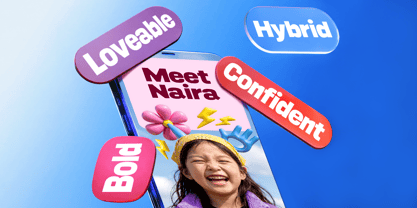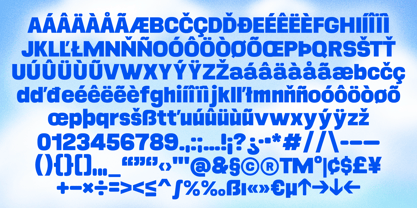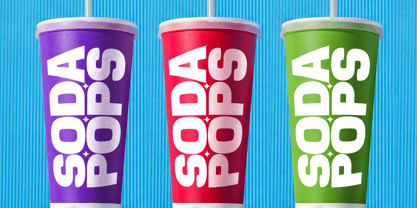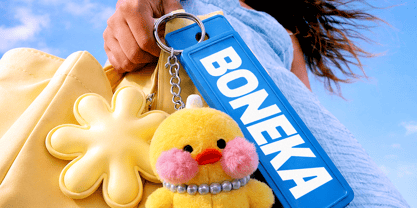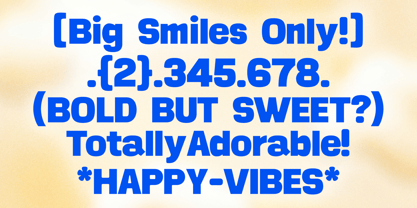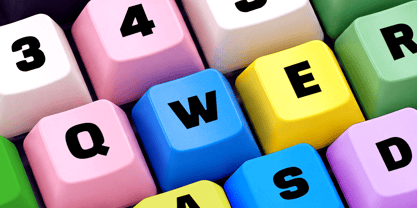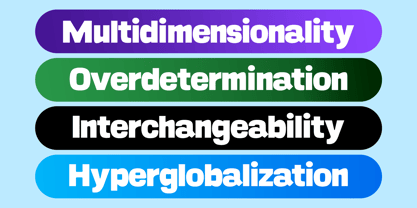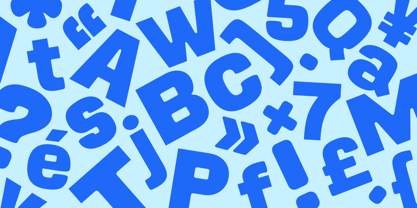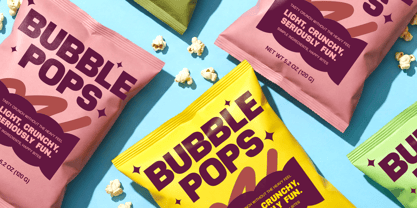
Beka
by Initiatype
The Beka Font Family was designed by Ferry Acviansyah and published by Initiatype. Beka contains 1 styles. More about this family
BEKA is a playful display sans serif designed to bring joy, confidence, and strong personality into bold typography. With its chunky forms, rounded corners, and soft geometric structure, BEKA delivers a lovable yet confident character that stands out while remaining clear and readable at large sizes. Perfect for posters, headlines, branding, packaging, and expressive visual design. BEKA is made for projects that want to clean structure give it a strong personality while staying easy to read at large sizes.
Designers: Ferry Acviansyah
Foundry: Initiatype